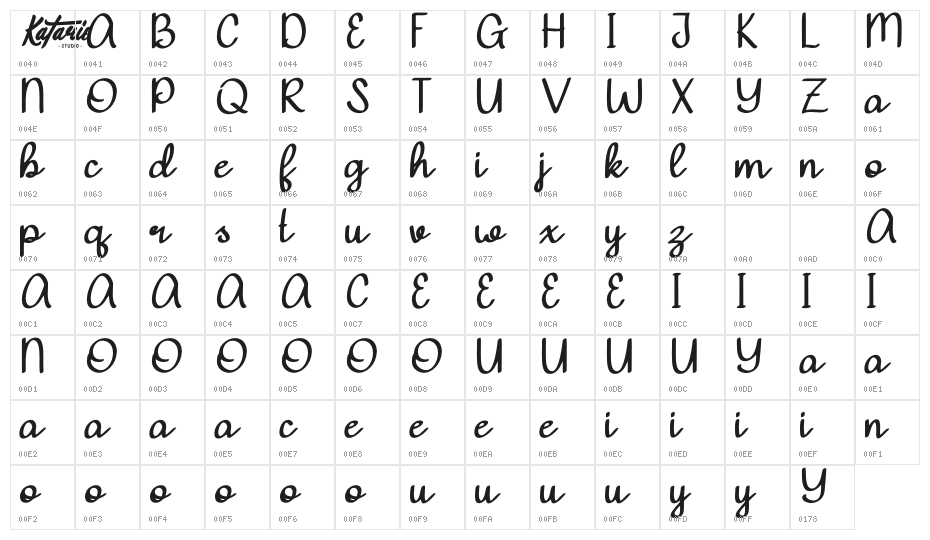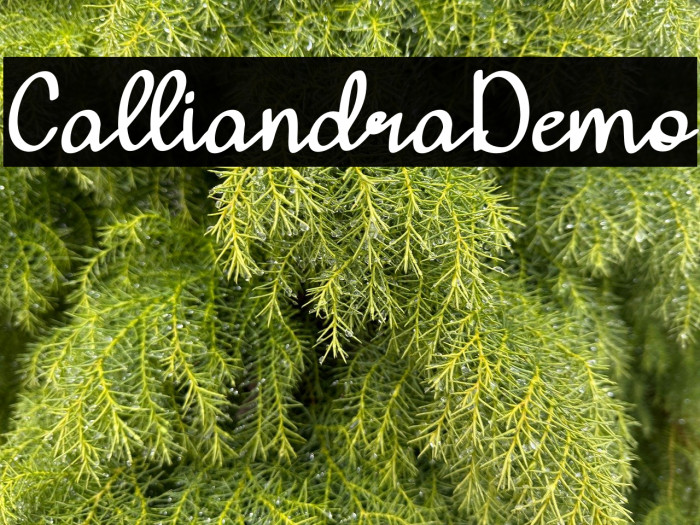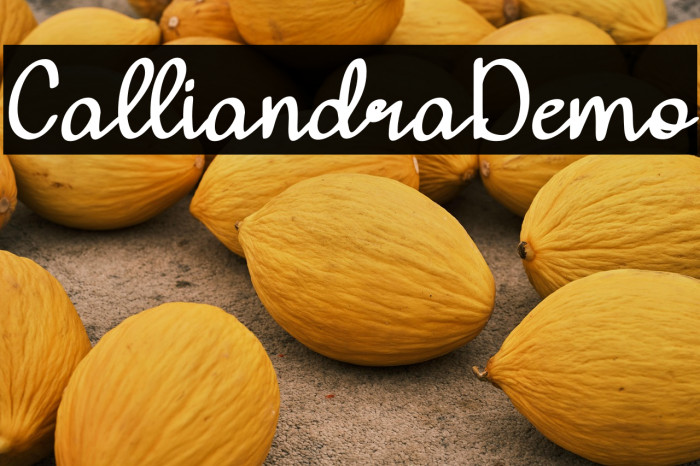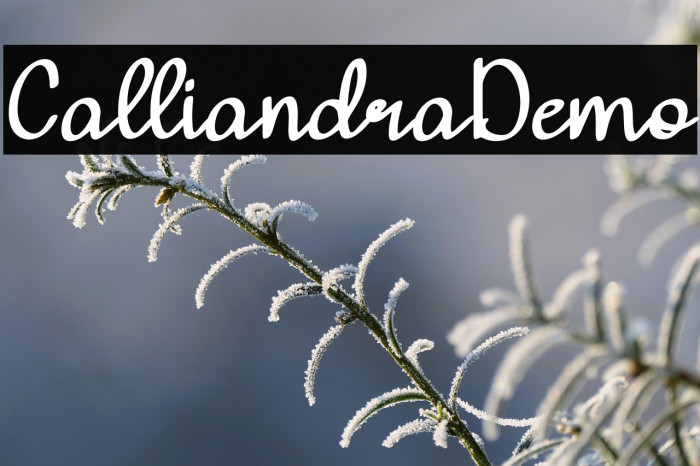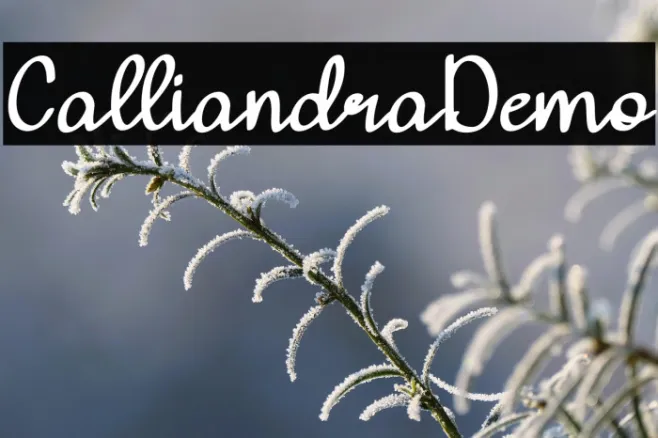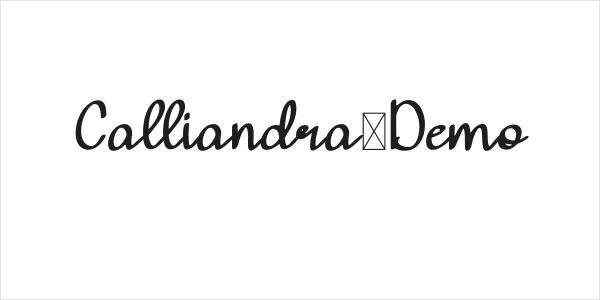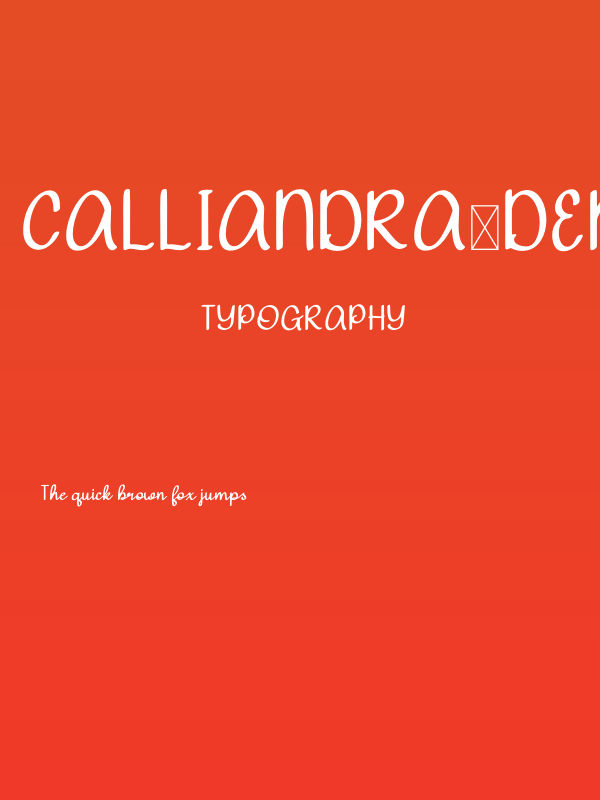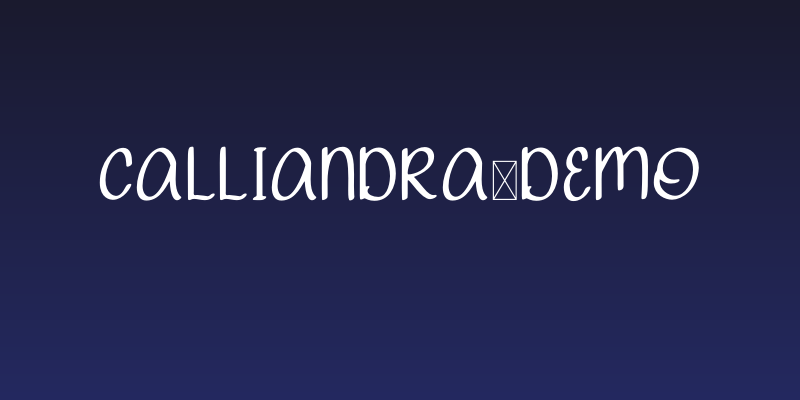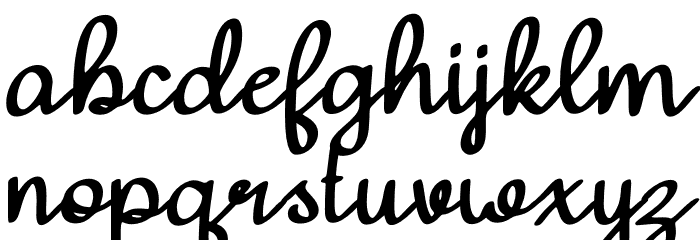
Calliandra-Demo Font
Calliandra-Demo Description
This font features a playful and elegant script style, characterized by its smooth, flowing lines and rounded edges. The uppercase letters are bold and slightly condensed, giving a strong presence, while the lowercase letters exhibit a more cursive, handwritten feel. The font maintains a consistent stroke width, providing a harmonious and balanced appearance. Its unique style combines both modern and classic elements, making it versatile for various design needs. The characters are well-spaced, ensuring readability while maintaining an artistic flair.